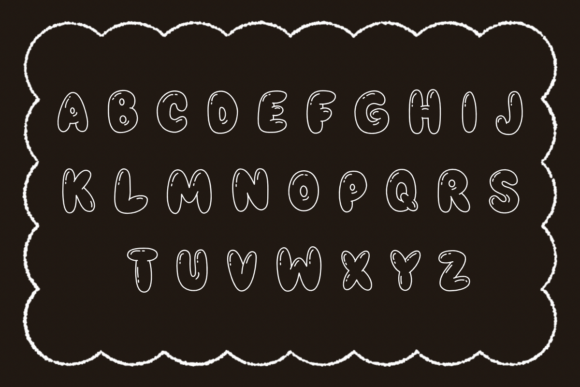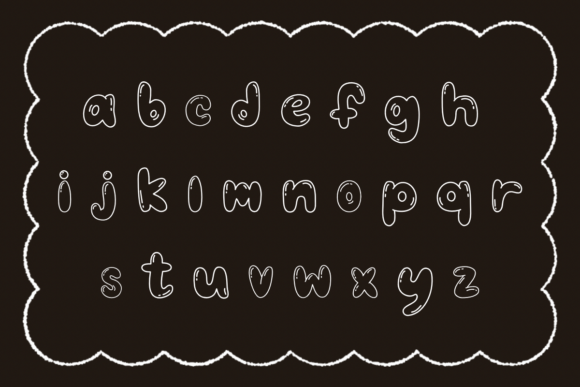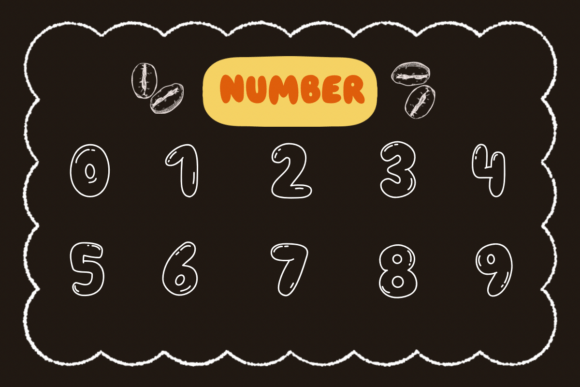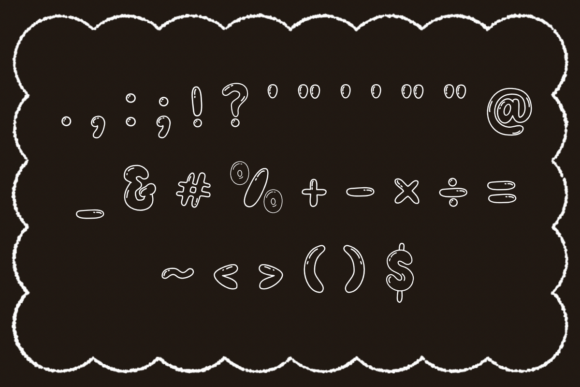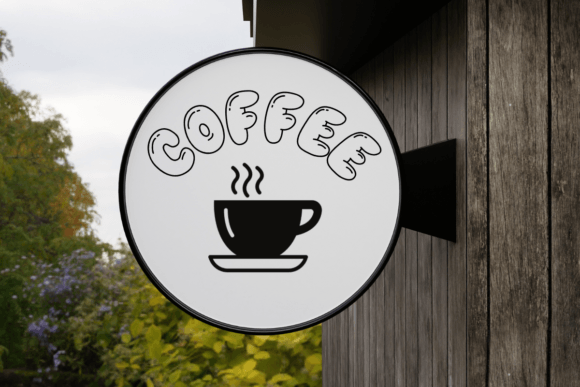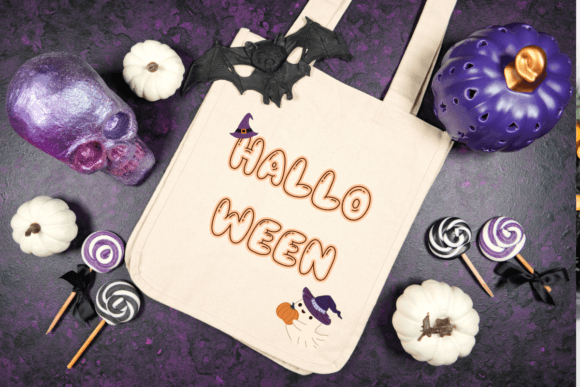
Coffee Font: The Perfect Addition to Your Cheerful Designs
Are you tired of using the same old fonts in your designs? Look no further than the Coffee Font, a playful and fun font that will add a friendly touch to any project. This delightful font features letters that resemble puffy balloons, giving it a light and happy feel that’s sure to bring a smile to your audience’s faces.
The Unique Characteristics of Coffee Font
The Coffee Font is a one-of-a-kind font that stands out from the crowd. Its unique characteristics make it perfect for designs that require a playful and cheerful touch. Here are some of the key features that make this font so special:
• Balloon-like letters: The letters in the Coffee Font are designed to look like fun, puffy balloons, giving it a whimsical and carefree feel.
• Light and happy feel: The font has a light and airy texture that’s perfect for creating designs that are cheerful and uplifting.
• Playful vibe: The Coffee Font is perfect for designs that require a playful and fun vibe, such as children’s party invitations, kids’ educational materials, or even branding for a toy company.
Uses for Coffee Font
The Coffee Font is versatile and can be used in a variety of design projects. Here are some ideas to get you started:
• Children’s party invitations: The Coffee Font is perfect for creating fun and playful invitations for kids’ parties.
• Kids’ educational materials: The font’s playful and cheerful feel makes it ideal for educational materials, such as worksheets, activity sheets, and children’s books.
• Branding for toy companies: The Coffee Font is a great fit for toy companies that want to create a fun and playful brand image.
• Signs and posters: The font’s bold and playful design makes it perfect for creating eye-catching signs and posters.
Why Designers and Crafters Love Coffee Font
Designers and crafters love the Coffee Font for its unique and playful design. Here are some reasons why:
• Easy to read: Despite its playful design, the Coffee Font is easy to read, making it perfect for designs that require a clear and concise message.
• Customizable: The Coffee Font can be customized to fit your design needs, allowing you to adjust the size, color, and style to match your brand.
• Unique and creative: The Coffee Font is a one-of-a-kind font that will set your designs apart from the crowd.
Tips for Using Coffee Font in Your Designs
Here are some tips for using the Coffee Font in your designs:
• Use it in combination with other fonts: The Coffee Font can be paired with other fonts to create a unique and interesting design.
• Experiment with colors: The font’s playful design makes it perfect for experimenting with bright and bold colors.
• Keep it simple: Don’t overcomplicate your design – the Coffee Font is perfect for simple and clean designs.
The Coffee Font is a playful and fun font that’s perfect for designers and crafters who want to add a friendly touch to their designs. Its unique characteristics, versatility, and ease of use make it a great addition to any design project. Whether you’re creating children’s party invitations, kids’ educational materials, or branding for a toy company, the Coffee Font is sure to bring a smile to your audience’s faces.